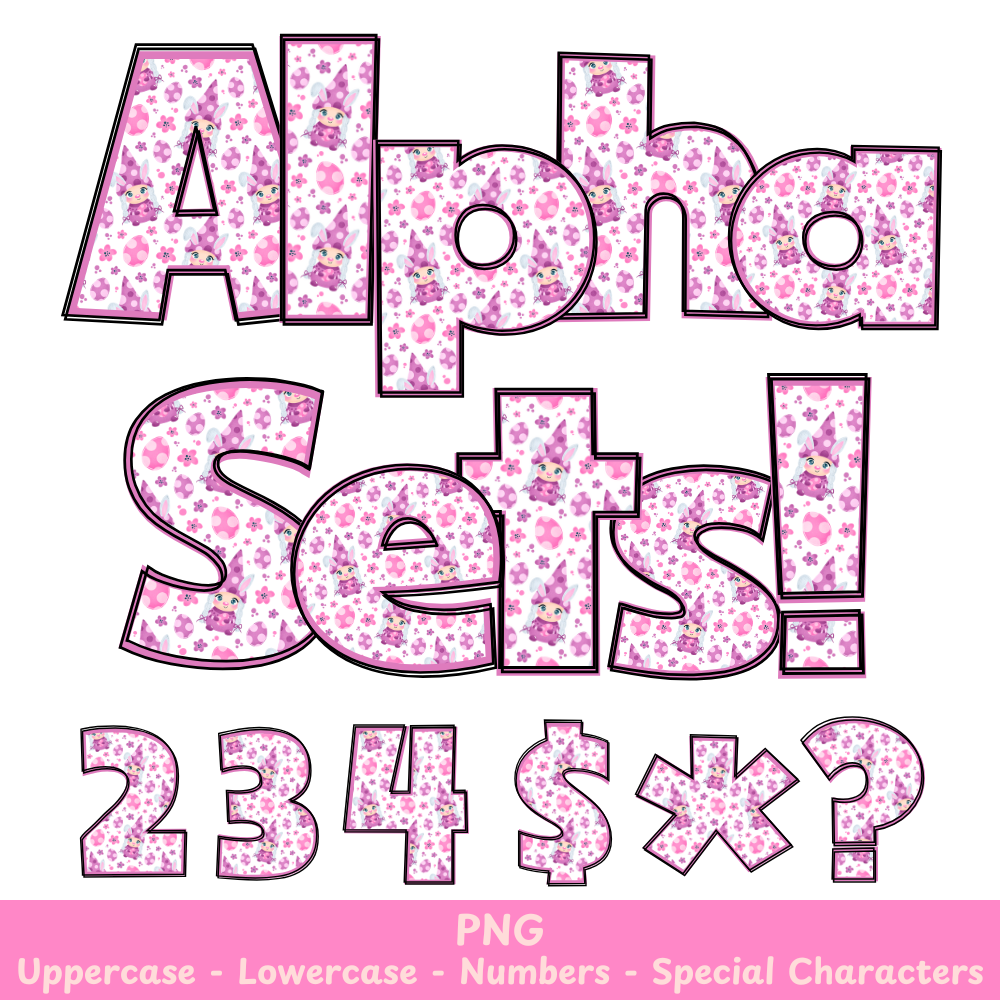
Pink Easter Gnome PNG Font
Pink Easter Gnome Alpha Set PNG Font Pack
Add a touch of whimsy and Easter charm to your crafts with our Pink Easter Gnome PNG Font. Perfect for use in sublimation and other projects, this font offers a unique and playful twist to your designs. Get creative and make your projects stand out with our colorful and versatile font!